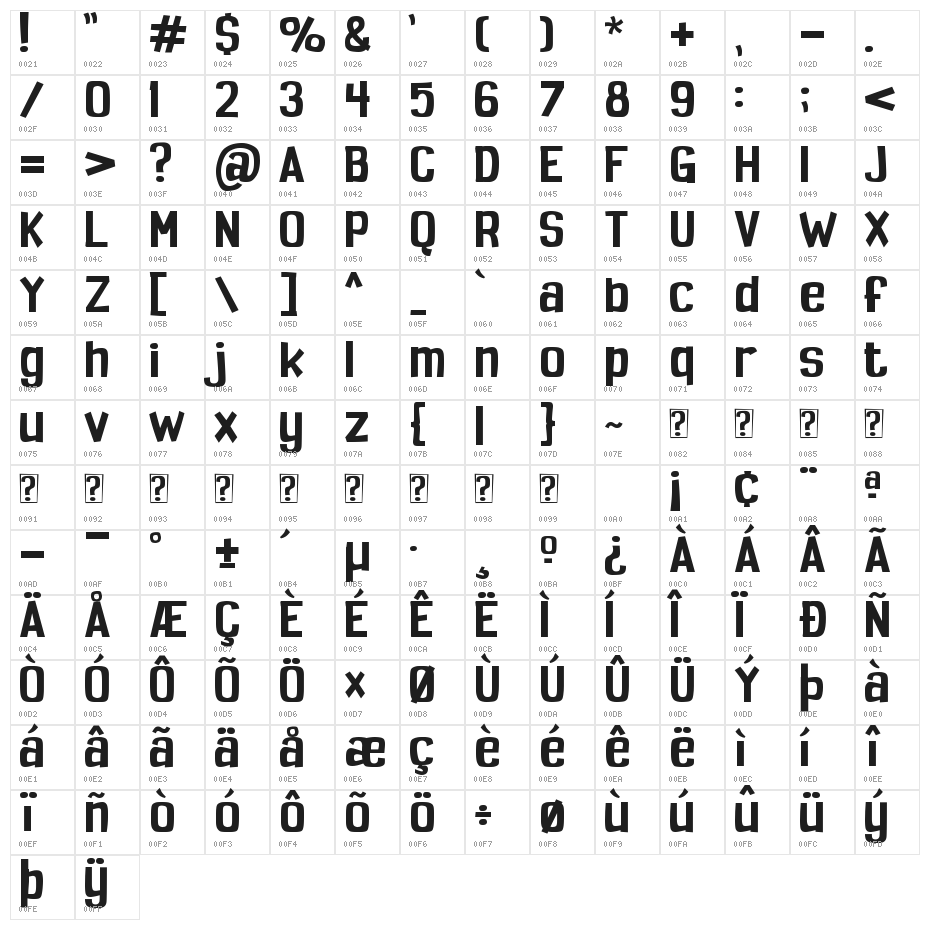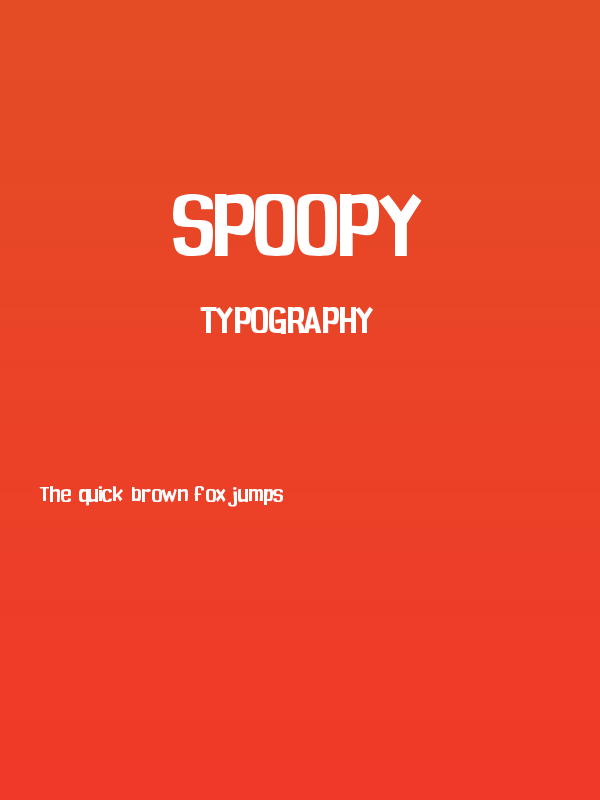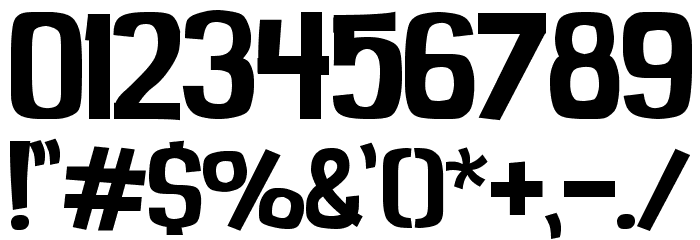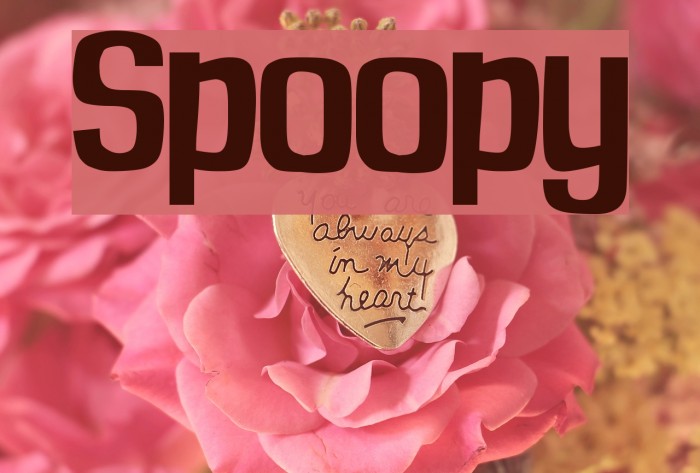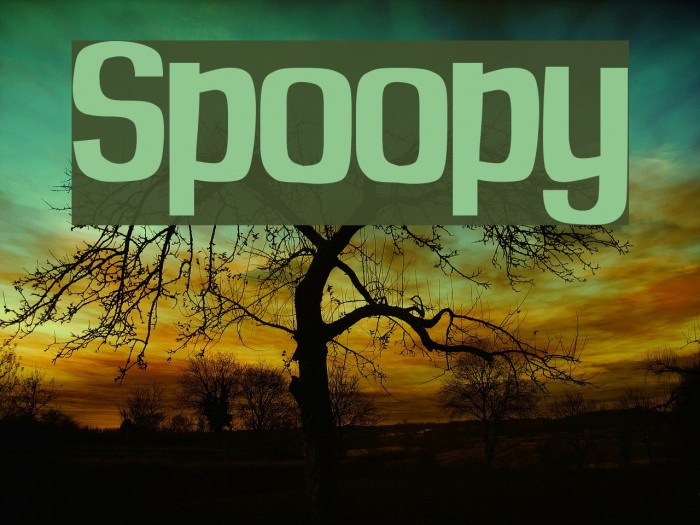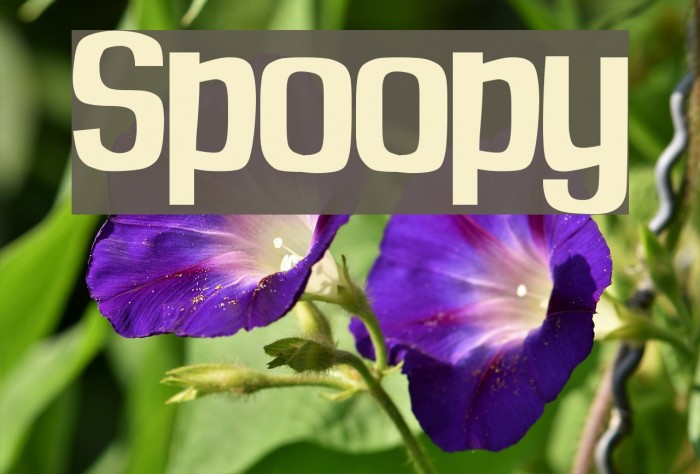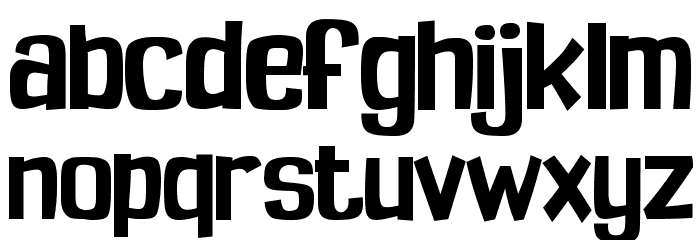
Spoopy Font
Spoopy Description
This font features a bold and playful design with a slightly spooky vibe, perfect for Halloween or themed events. The characters are thick and have a slightly uneven baseline, adding to the quirky and whimsical feel. The uppercase letters are robust and commanding, while the lowercase letters maintain a consistent style with a touch of playfulness. The numbers are bold and clear, making them suitable for attention-grabbing headlines or signage. Special characters are included, maintaining the same bold and quirky aesthetic, ensuring versatility in various design projects.
| Proposed Projects | Great for Halloween posters, themed party invitations, children's book covers, and playful branding. |